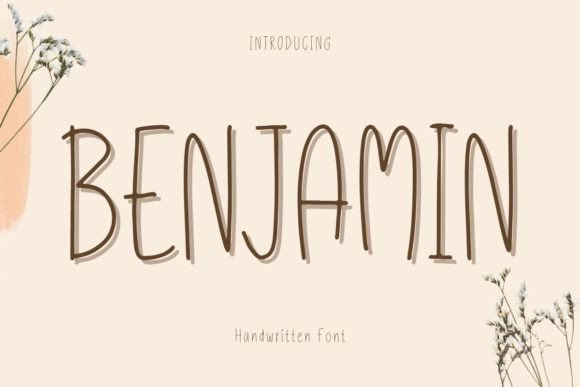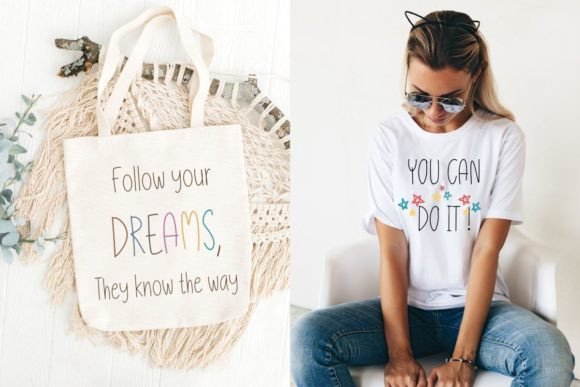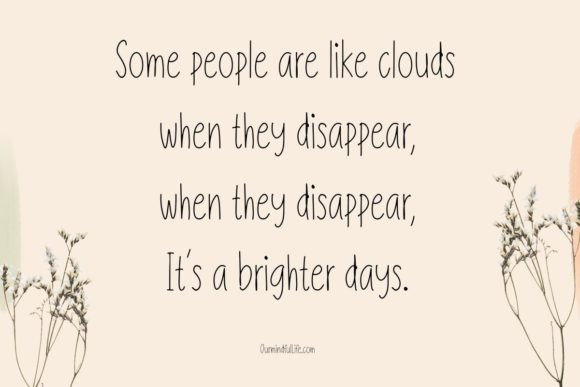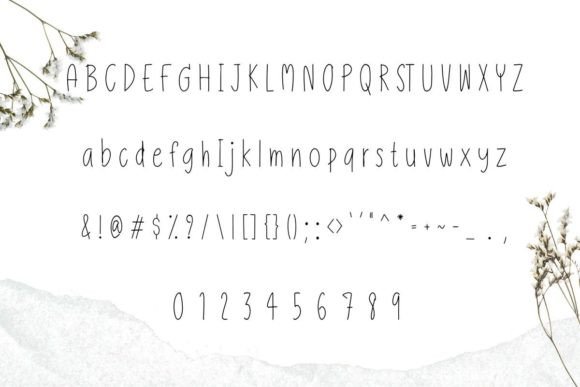
About Benjamin Handwritten Font
Benjamin Handwritten Font is a skinny and stylish script typeface crafted to add personality and charm to creative projects. With its thin strokes, casual flow, and modern handwritten style, it brings a touch of elegance while staying simple and approachable. Because of its versatility, Benjamin Handwritten Font is perfect for SVG designs, mugs, pottery, shirts, tote bags, cards, wall art, and interior prints.
A Skinny Typeface with Modern Style
Handwritten fonts often carry authenticity, and Benjamin Handwritten Font embodies this with its lightweight structure. Its skinny lines provide a clean and modern aesthetic, making it ideal for projects that require elegance without losing readability. Additionally, its natural rhythm ensures it works well across both large headlines and smaller text.
Perfect Typeface for Crafts and DIY Projects
DIY enthusiasts and crafters will find Benjamin Handwritten Font especially useful. For example, it enhances mug designs, pottery projects, and tote bags with a stylish handwritten look. Moreover, it fits perfectly on custom T-shirts, greeting cards, and handmade labels, adding a personal and heartfelt touch to your creations.
A Handwritten Typeface for Branding and Wall Art
Benjamin Handwritten Font also excels in branding and decorative designs. It looks impressive on boutique logos, product packaging, and promotional materials. Furthermore, it elevates wall art, posters, and home décor projects, giving them a clean yet artistic vibe. When paired with bold sans serif fonts, it creates a modern and professional design balance.
Flexible Across Print and Digital Media
Another strength of Benjamin HandwrittenFont is its adaptability across different formats. In print, it enhances posters, brochures, and merchandise with sophistication. Digitally, it integrates smoothly into SVG designs, blogs, and social media posts. Since it scales perfectly from small details to large banners, it guarantees readability and clarity everywhere.